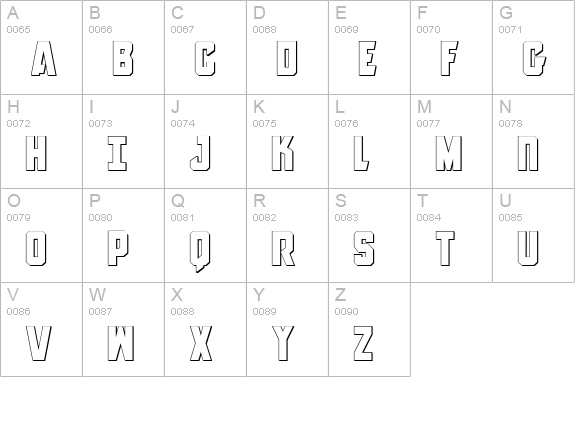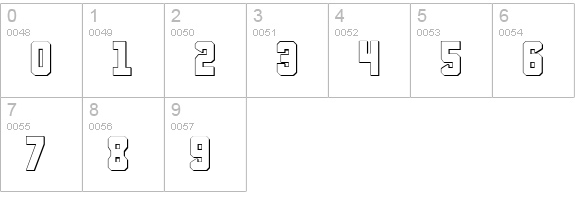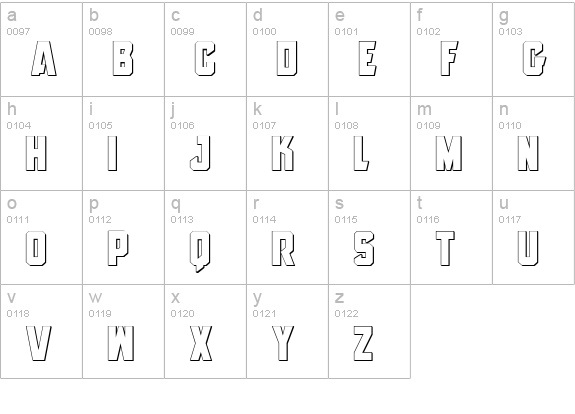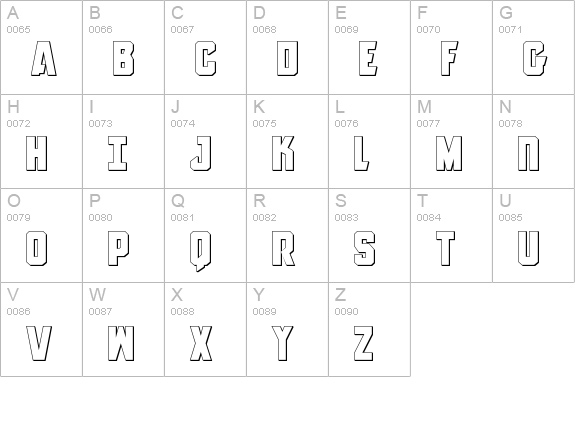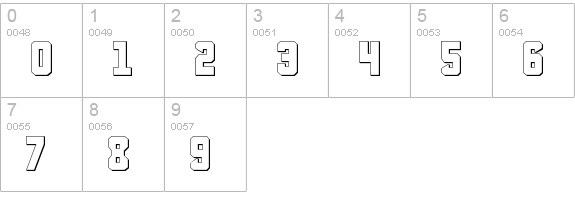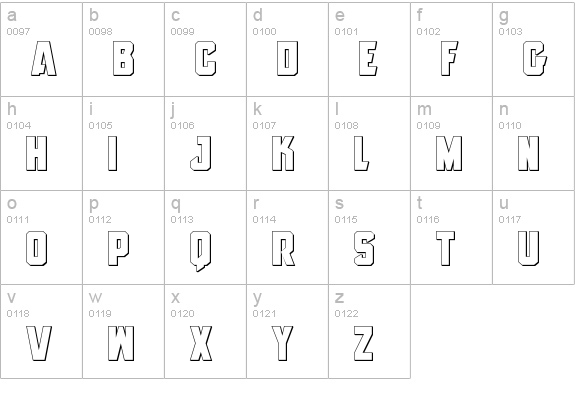
Introducing the exquisite Anitlles 3D font, a stunning typeface that seamlessly blends elegance with creativity. This captivating font boasts intricate 3D effects that add depth and dimension to any design project, making it perfect for titles, headings, and logos that demand attention. Its sleek lines and modern aesthetic give any text a sophisticated edge, while its unique design sets it apart from traditional fonts. And the best part? Anitlles 3D font is completely free to download at FontsMarket.com, allowing designers and creators to access this exceptional typeface without any cost. Whether you're working on branding, advertising, or digital art, this versatile font is sure to elevate your work to the next level. Embrace the boldness of Anitlles 3D font and let your creativity soar with this exceptional font at your fingertips.